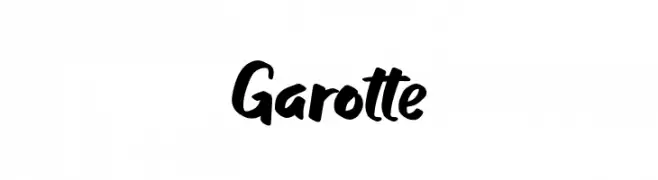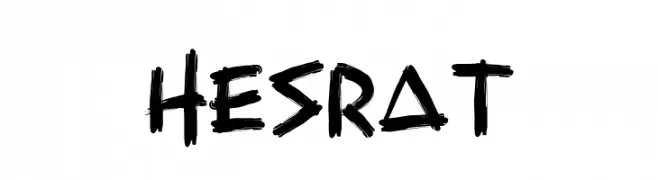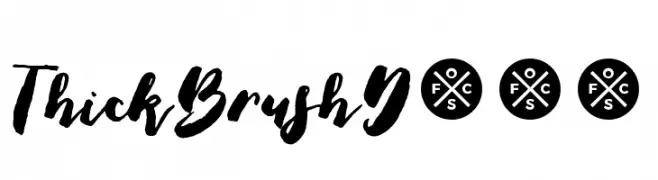
A bold, expressive brush-style font with dynamic strokes and a hand-painted look.
A bold, hand-painted style font with dynamic and expressive characters.
A bold, expressive brush script font with dynamic, hand-painted strokes.
A bold, brushstroke font with an expressive, hand-painted style.
A bold, expressive brush-style font with dynamic, hand-painted characteristics.
A dynamic, brush-style font with fluid, hand-painted strokes.
A bold, dynamic font with a playful, hand-painted style.
A bold, distressed font with a grungy, hand-painted style.
A bold, brushstroke font with an energetic, hand-painted style.
A bold, hand-painted style font with an expressive and dynamic appearance.